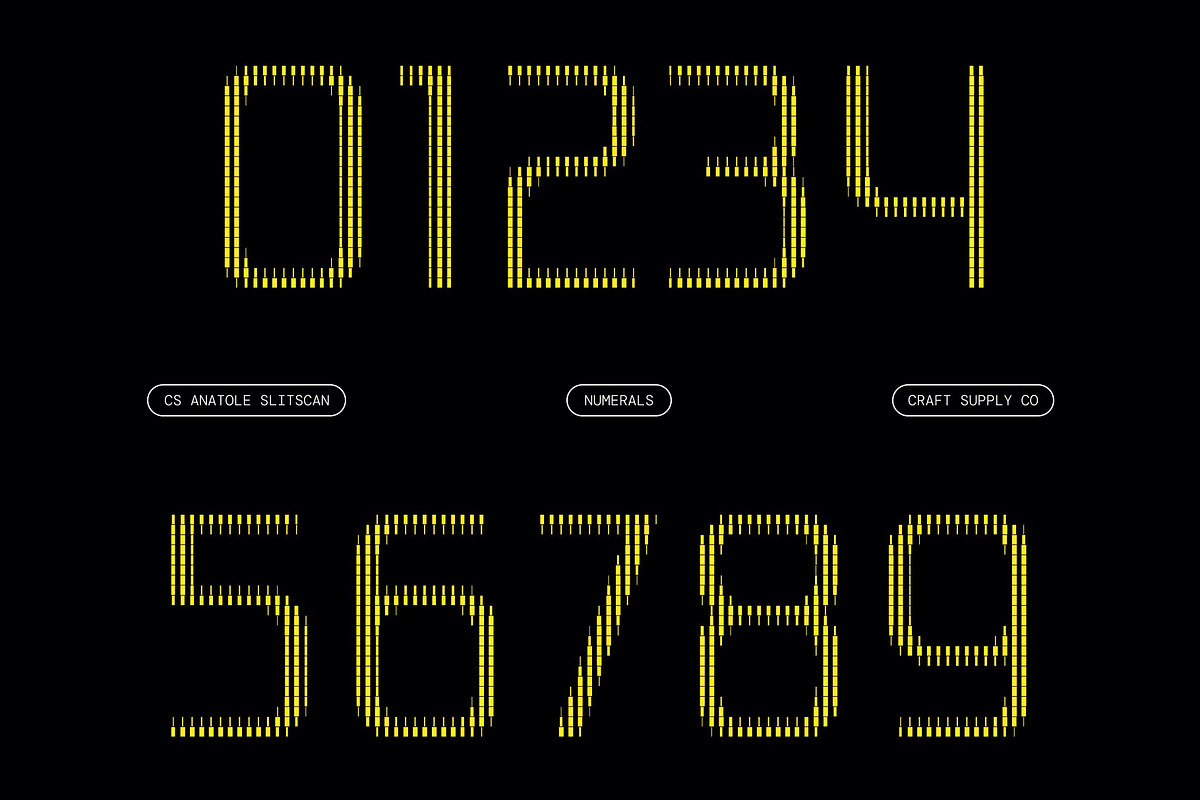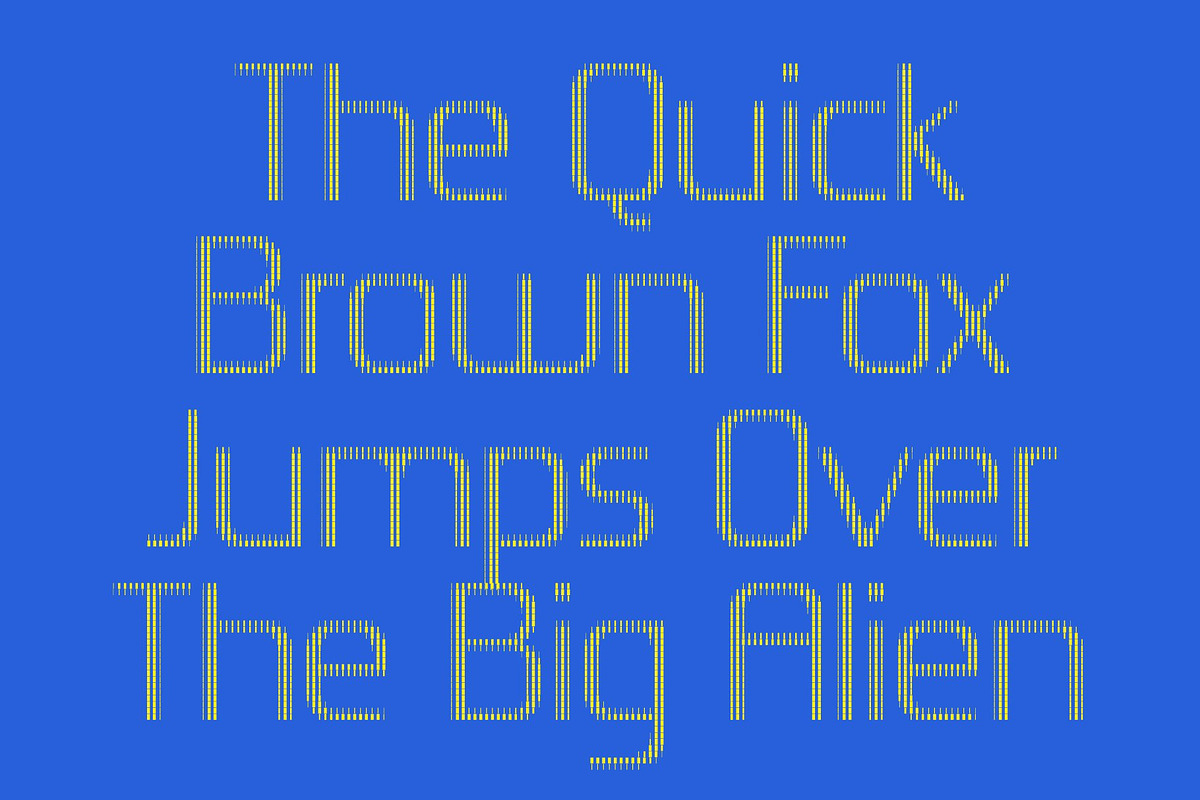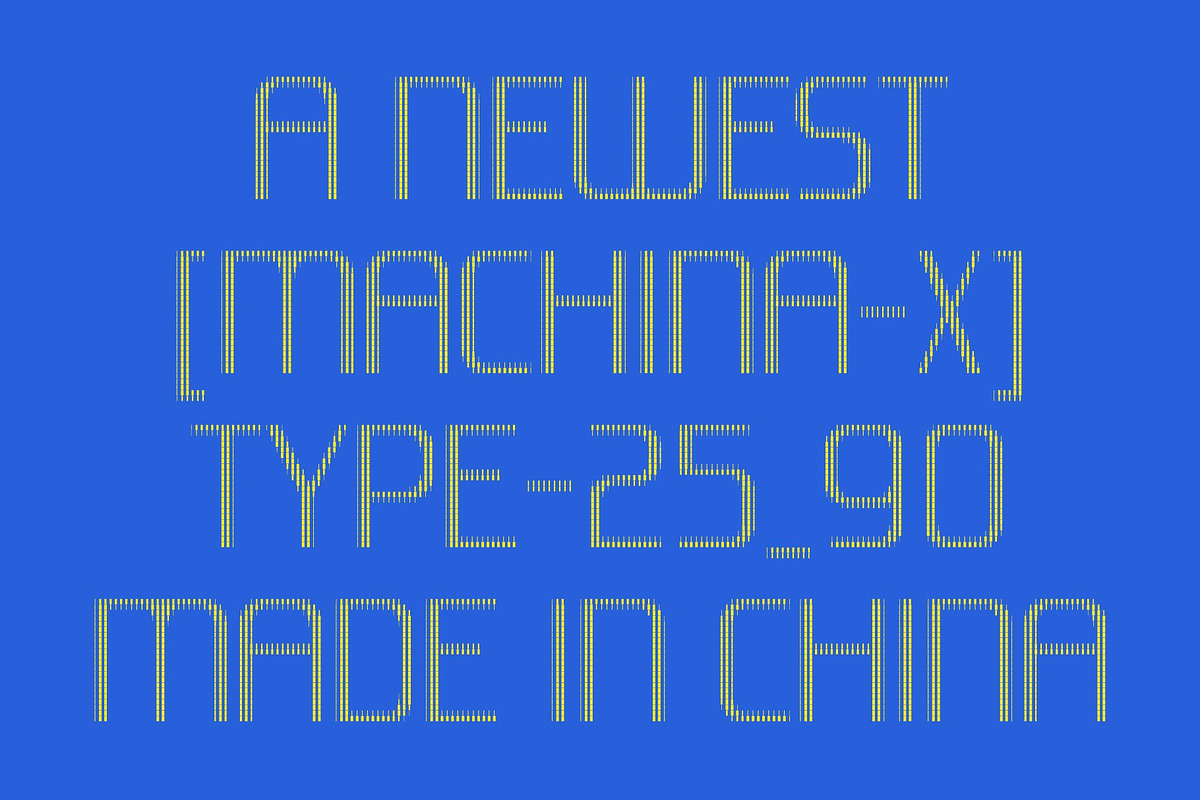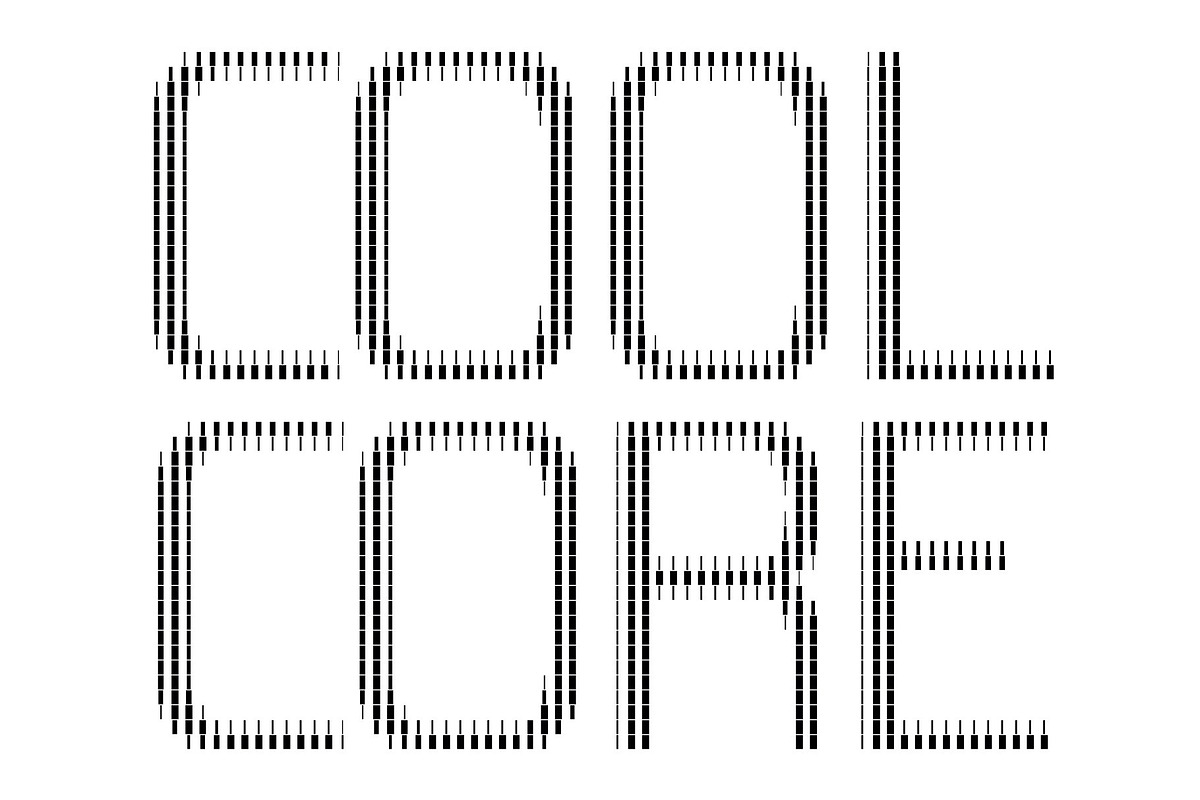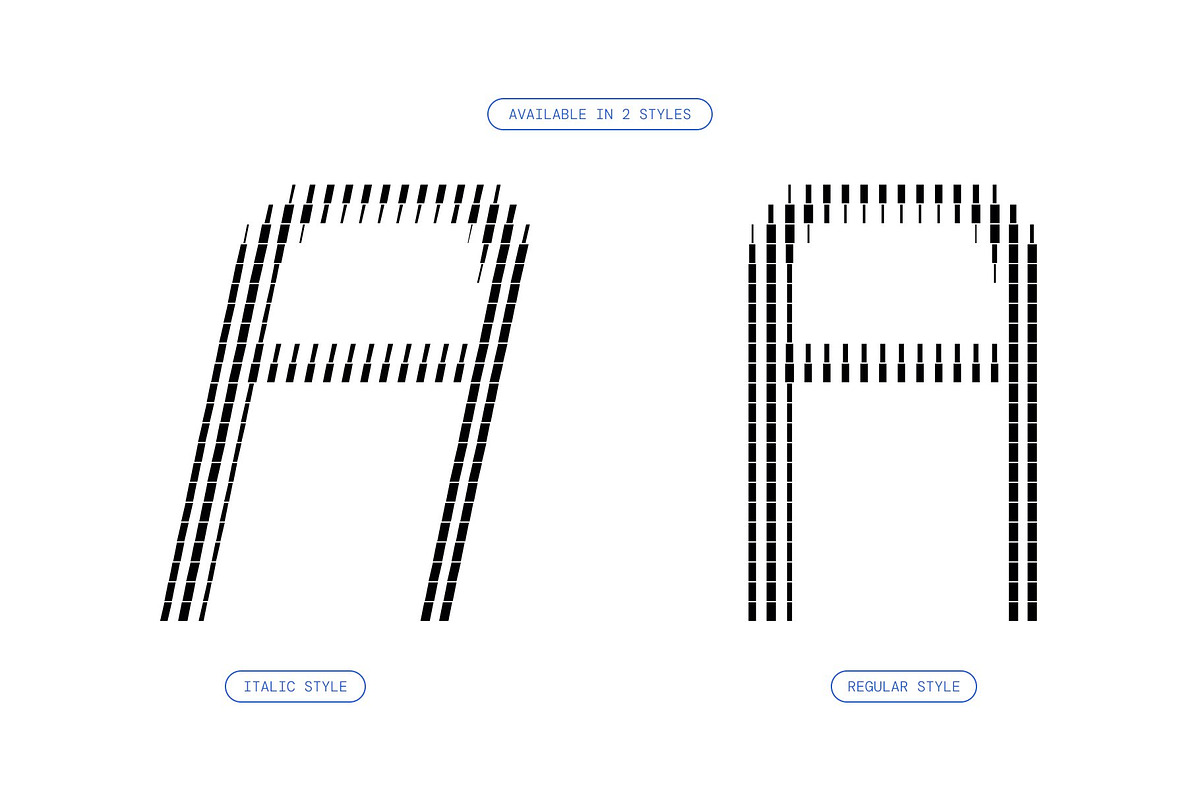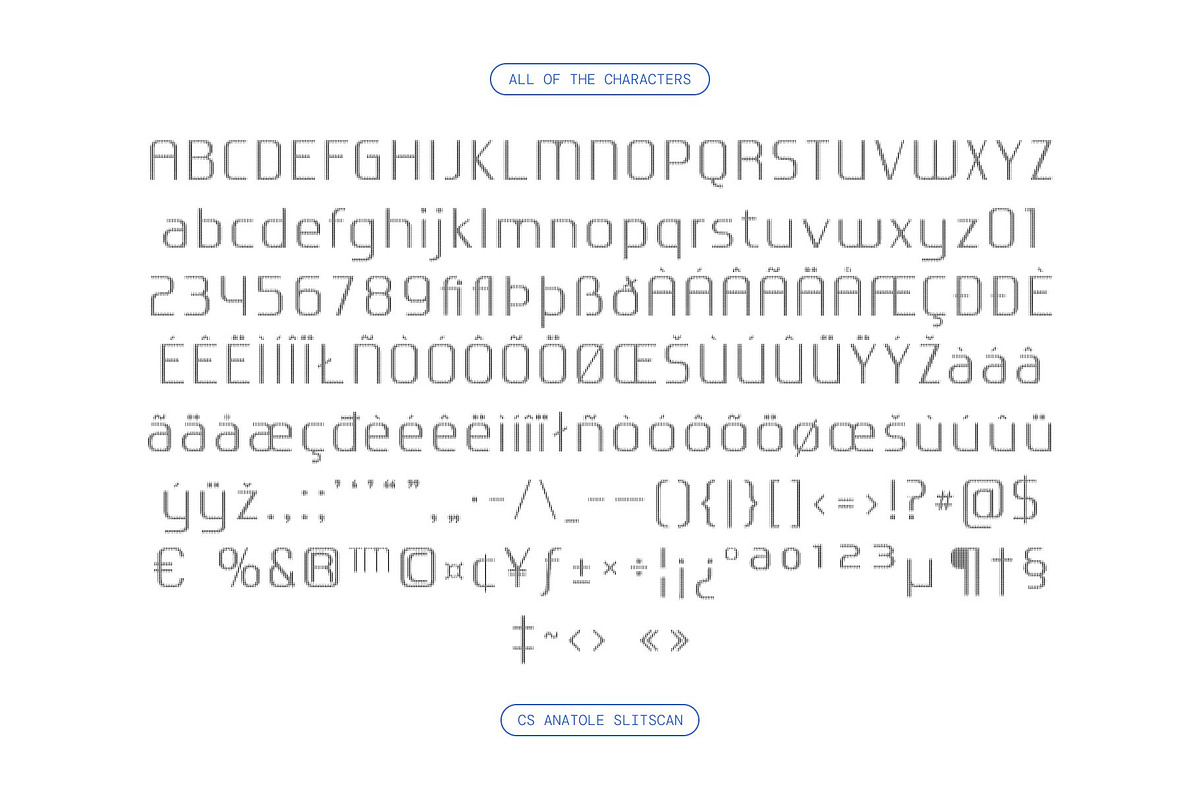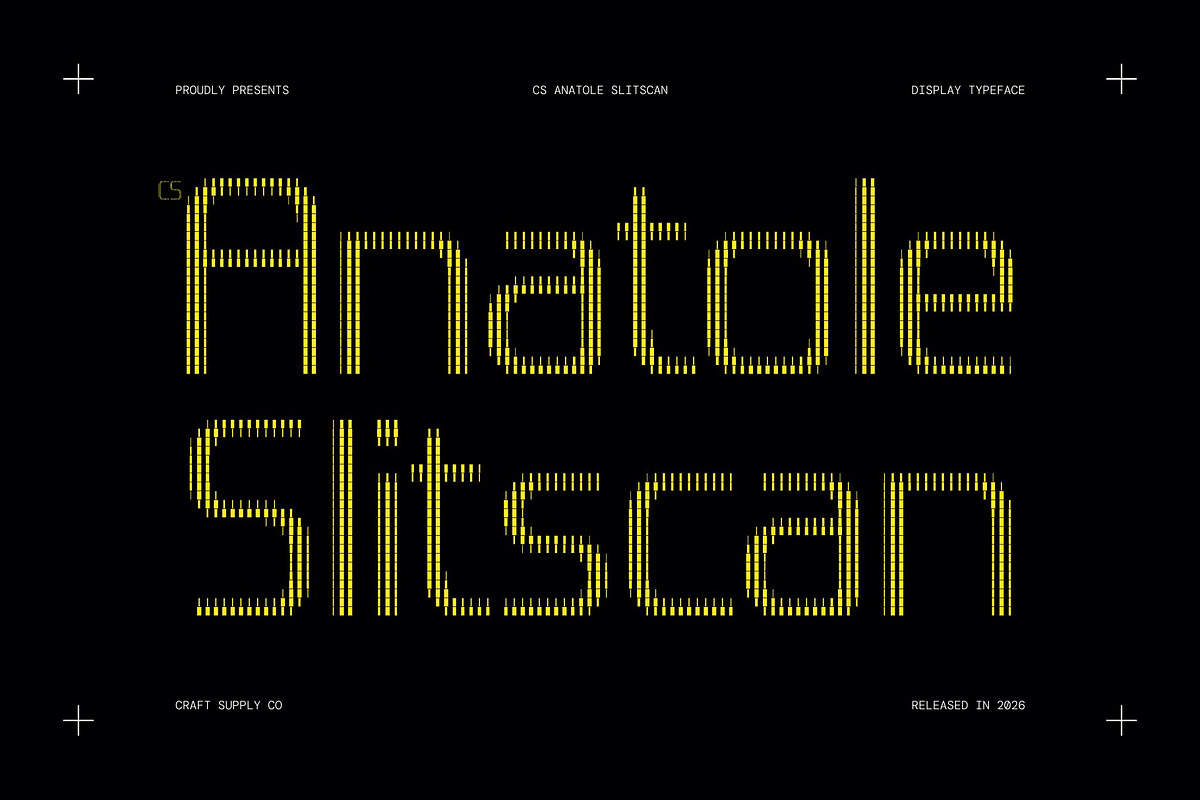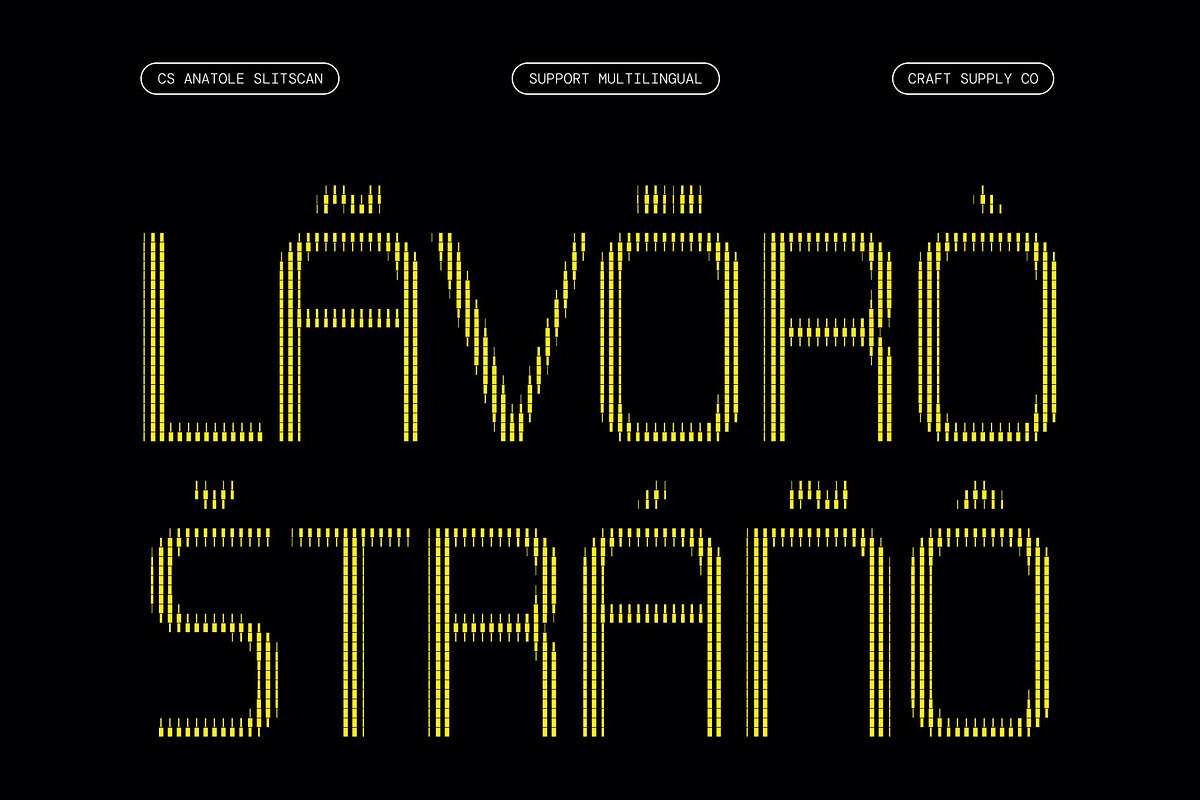
CS Anatole Slitscan
CS Anatole Slitscan – Where Futurism Meets Elegant Motion
Modern Futuristic Display Typeface This is a modern futuristic display font designed to capture attention with sleek geometry, clean sans serif construction, and contemporary energy. Its refined letterforms embody precision and progress, reflecting the aesthetics of cutting-edge technology and forward-thinking design.
Slitscan Effect: Subtle Motion & Digital Sophistication Inspired by the slit-scan visual technique, this typeface introduces vertical sliced layers that create a sense of movement and time-shift. The effect adds a futuristic and experimental nuance while preserving the font’s elegant and polished character.
Striking Shapes with Refined Balance Each character is crafted with sharp precision and balanced proportions, blending futuristic minimalism with a stylistic edge. Streamlined shapes and confident spacing create a dynamic, high-tech personality while maintaining excellent clarity and legibility.
Designed for Strong Branding & Visual Impact Whether used for logos, posters, or bold headlines, this font ensures a confident and memorable presence. Its modern aesthetic enhances brand identity and communicates innovation, professionalism, and contemporary sophistication.
Versatile for Contemporary Creative Projects Ideal for tech branding, digital interfaces, editorial layouts, futuristic campaigns, and experimental artwork. This font delivers modern elegance with a refined futuristic motion that keeps designs fresh and forward-looking.